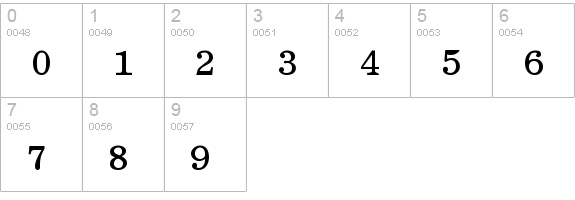
Elite Bold Font Details
Elite Bold is a strong, high-contrast variant in the Elite typeface family \xE2\x80\x94 well suited to headlines, attention-grabbing titles, and strong calls-to-action.
The Elite Bold font exudes sophistication and elegance with its sleek lines and modern aesthetic. This versatile typeface is perfect for making a bold statement in your designs, whether it be for branding, editorial work, or signage. The sharp edges and clean design of Elite Bold make it stand out from the crowd, commanding attention and adding a touch of luxury to any project. And the best part? Elite Bold is available for free download at FontsMarket.com! This means you can elevate your designs without breaking the bank, giving you access to a premium font that will make your work truly shine. Don't miss out on the opportunity to enhance your projects with the striking beauty of Elite Bold - download it for free today!